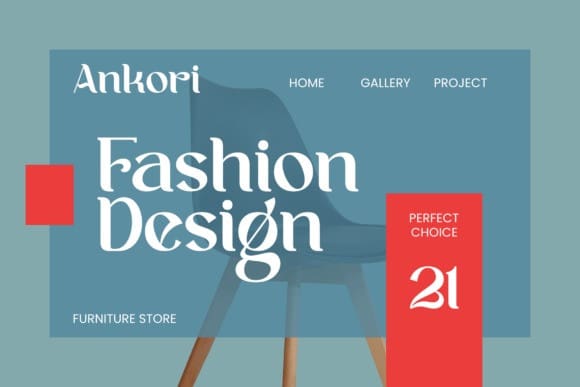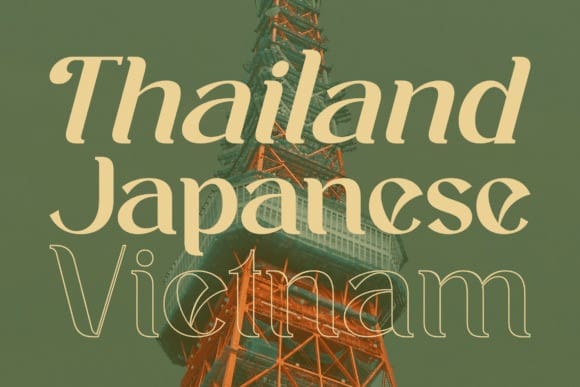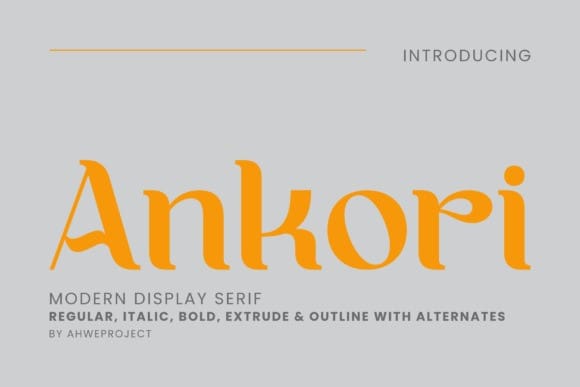
Ankori Font
Ankori Font is a modern serif font with a unique style, a light and high contrast font perfect for feminine logo signs, fashion heads & editorial designs.
Ankori is perfect for branding projects, logo design, clothing branding, packaging, magazine headings, advertising, t-shirts, postcards and much more.